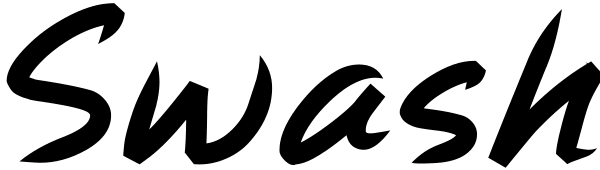
Swash
This innovative styled swash font was created to suit various design applications within the typeface market and is aimed at people looking for a sharp styled brush script typeface that doesn't fit in with the regular trends of hand written fonts...